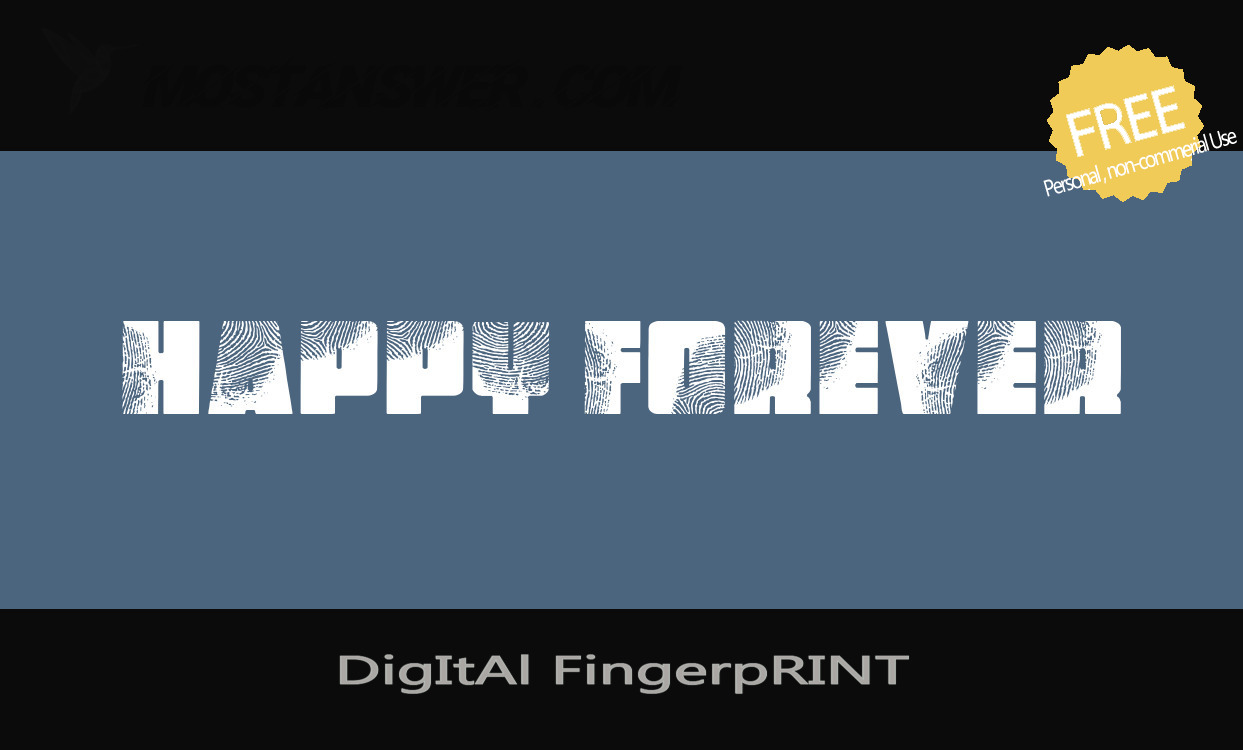
Digital Fingerprint Font . Click now to create a custom image with your own words that you can download. Discover a world of captivating typography for your creative projects. It features bold and thick lines that form the distinct loops and ridges of a fingerprint, giving it a. 15.923 downloads (6 gestern) kostenlos für privaten gebrauch. Font digital fingerprint, license and terms of use, symbols, categories, supported languages, download link. Digital fingerprint font is a unique and stylish typeface that mimics the look of a digital fingerprint. Free download of digital fingerprint font. Commercial licenses and complete set available @ billyargel.com Digital fingerprint € von billy argel fonts ®. Explore fingerprint fonts at myfonts. This font is partial and free for personal use. Digital fingerprint font is a bold eroded typeface designed by billy argel. Unleash your design potential today!
It features bold and thick lines that form the distinct loops and ridges of a fingerprint, giving it a. Digital fingerprint font is a unique and stylish typeface that mimics the look of a digital fingerprint. Free download of digital fingerprint font. Explore fingerprint fonts at myfonts. 15.923 downloads (6 gestern) kostenlos für privaten gebrauch. This font is partial and free for personal use. Digital fingerprint € von billy argel fonts ®. Click now to create a custom image with your own words that you can download. Font digital fingerprint, license and terms of use, symbols, categories, supported languages, download link. Digital fingerprint font is a bold eroded typeface designed by billy argel.
Digital Fingerprint Font 15.923 downloads (6 gestern) kostenlos für privaten gebrauch. Free download of digital fingerprint font. Explore fingerprint fonts at myfonts. Commercial licenses and complete set available @ billyargel.com This font is partial and free for personal use. Digital fingerprint font is a unique and stylish typeface that mimics the look of a digital fingerprint. Font digital fingerprint, license and terms of use, symbols, categories, supported languages, download link. Click now to create a custom image with your own words that you can download. Unleash your design potential today! Discover a world of captivating typography for your creative projects. 15.923 downloads (6 gestern) kostenlos für privaten gebrauch. Digital fingerprint font is a bold eroded typeface designed by billy argel. Digital fingerprint € von billy argel fonts ®. It features bold and thick lines that form the distinct loops and ridges of a fingerprint, giving it a.
DigItAl FingerpRINT Font Download Free for Desktop & font Digital Fingerprint Font 15.923 downloads (6 gestern) kostenlos für privaten gebrauch. Explore fingerprint fonts at myfonts. Digital fingerprint € von billy argel fonts ®. Commercial licenses and complete set available @ billyargel.com This font is partial and free for personal use. Unleash your design potential today! Font digital fingerprint, license and terms of use, symbols, categories, supported languages, download link. Discover a world. Digital Fingerprint Font.
fingerprint font set Stock vector Colourbox Digital Fingerprint Font Digital fingerprint font is a bold eroded typeface designed by billy argel. This font is partial and free for personal use. Commercial licenses and complete set available @ billyargel.com Explore fingerprint fonts at myfonts. Unleash your design potential today! Free download of digital fingerprint font. Digital fingerprint font is a unique and stylish typeface that mimics the look of a. Digital Fingerprint Font.
DigItAl FingerpRINT PERSONAL US Font · 1001 Fonts Digital Fingerprint Font Font digital fingerprint, license and terms of use, symbols, categories, supported languages, download link. Digital fingerprint font is a unique and stylish typeface that mimics the look of a digital fingerprint. It features bold and thick lines that form the distinct loops and ridges of a fingerprint, giving it a. Commercial licenses and complete set available @ billyargel.com Digital fingerprint. Digital Fingerprint Font.
Fingerprint Font Stock Illustrations 145 Fingerprint Font Stock Digital Fingerprint Font Font digital fingerprint, license and terms of use, symbols, categories, supported languages, download link. Discover a world of captivating typography for your creative projects. 15.923 downloads (6 gestern) kostenlos für privaten gebrauch. Click now to create a custom image with your own words that you can download. Commercial licenses and complete set available @ billyargel.com Digital fingerprint font is a. Digital Fingerprint Font.